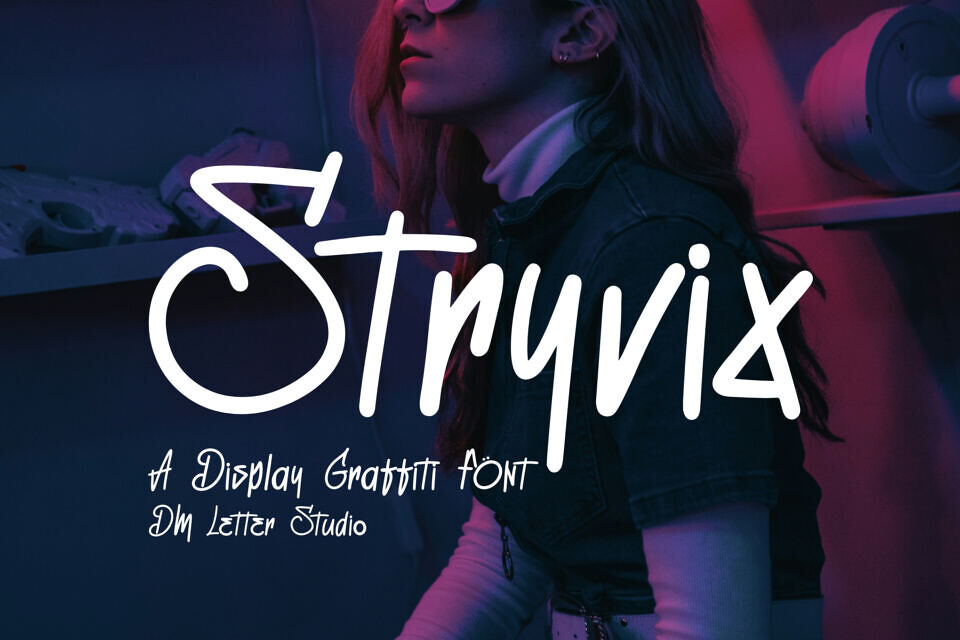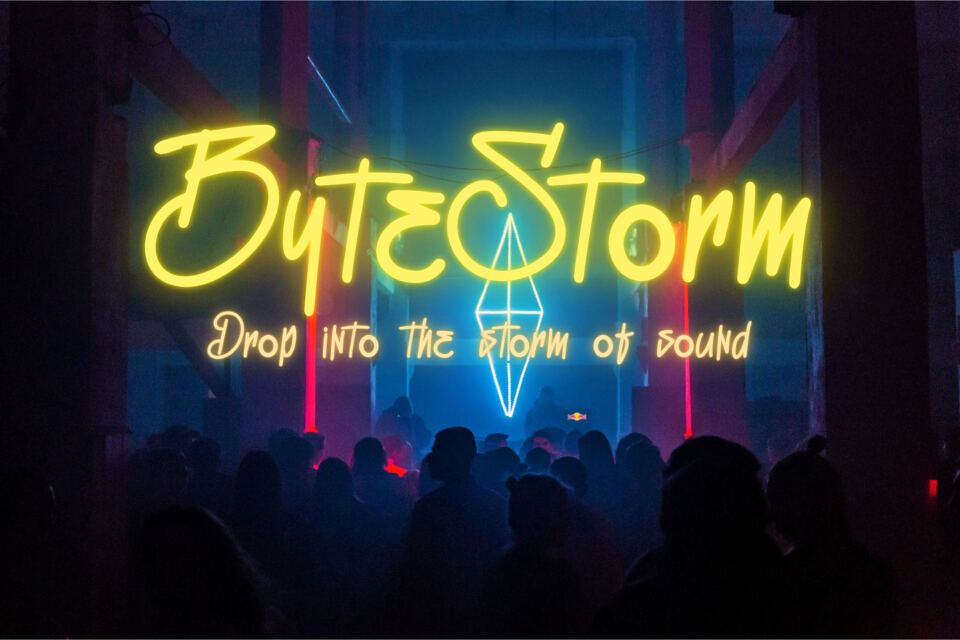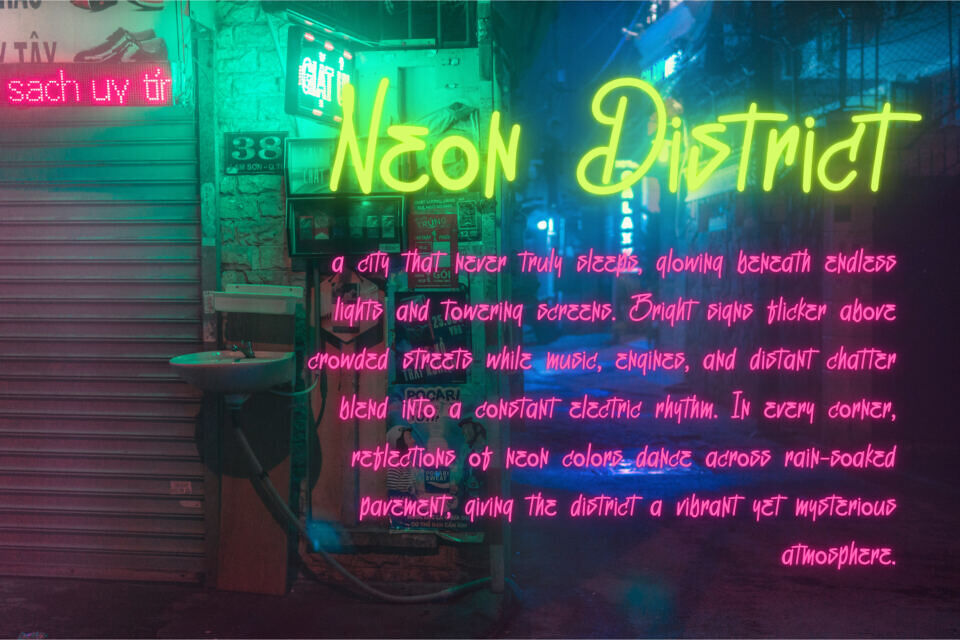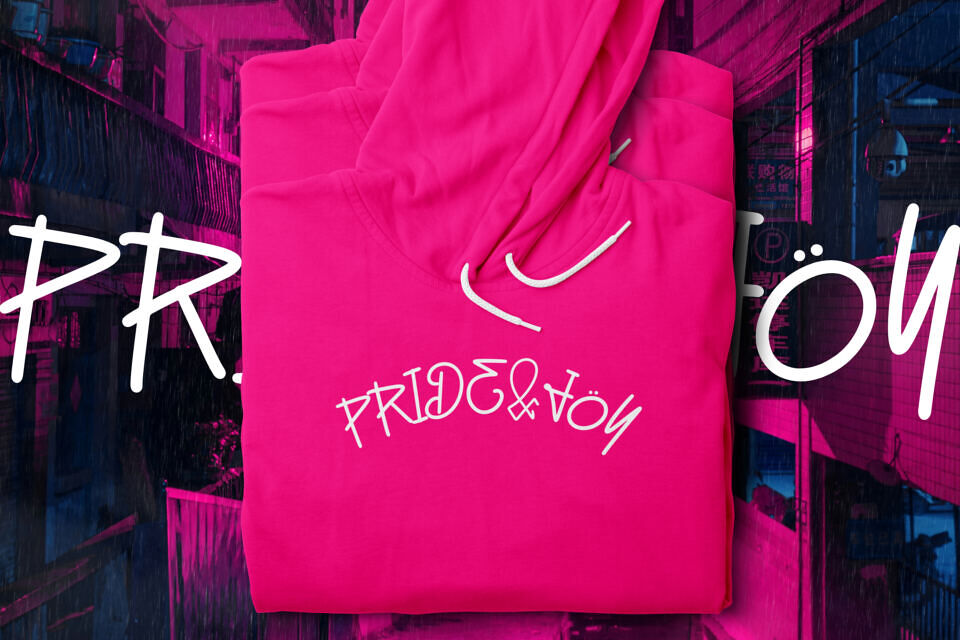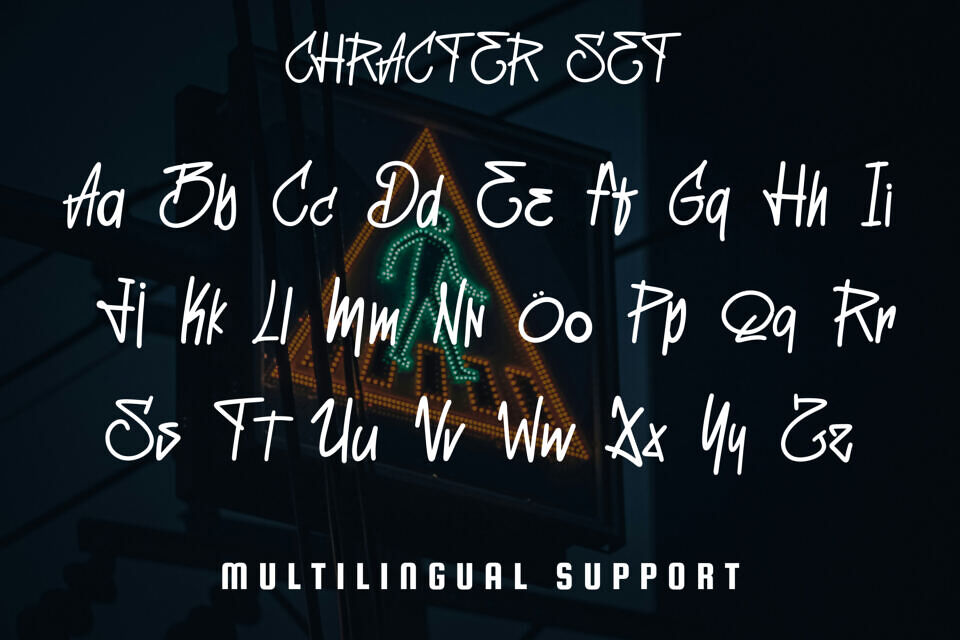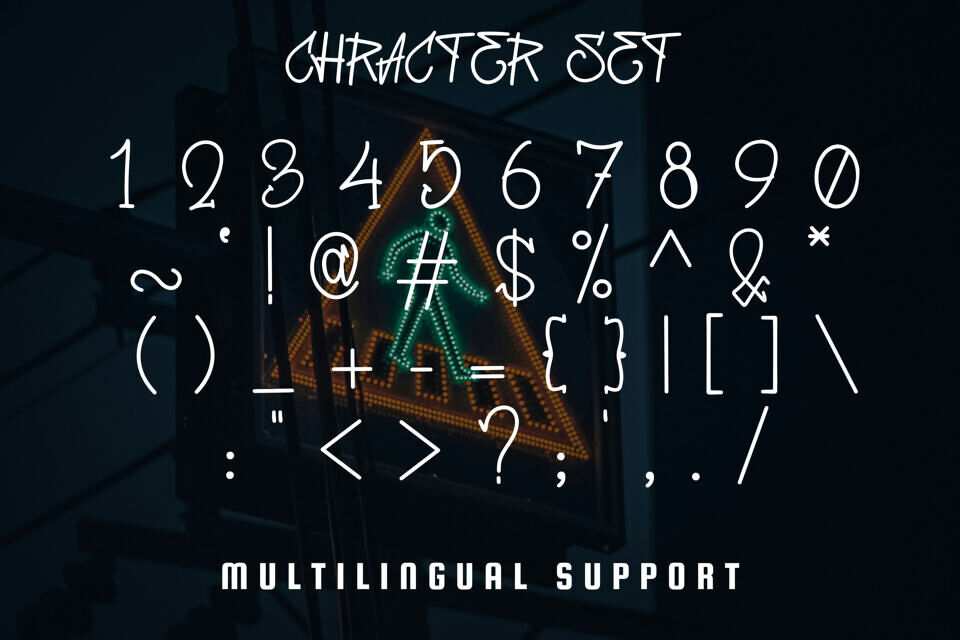
Stryvix is a bold graffiti display font designed to bring raw street energy into your typography. The letterforms feel sharp, expressive, and rebellious, like a fresh tag sprayed across a concrete wall. Each character carries a strong urban attitude that instantly makes designs look edgy and attention-grabbing.
Use Stryvix for streetwear branding, music posters, gaming graphics, thumbnails, hip hop visuals, sticker art, and bold merchandise. As a result, your typography feels loud, urban, and full of personality.